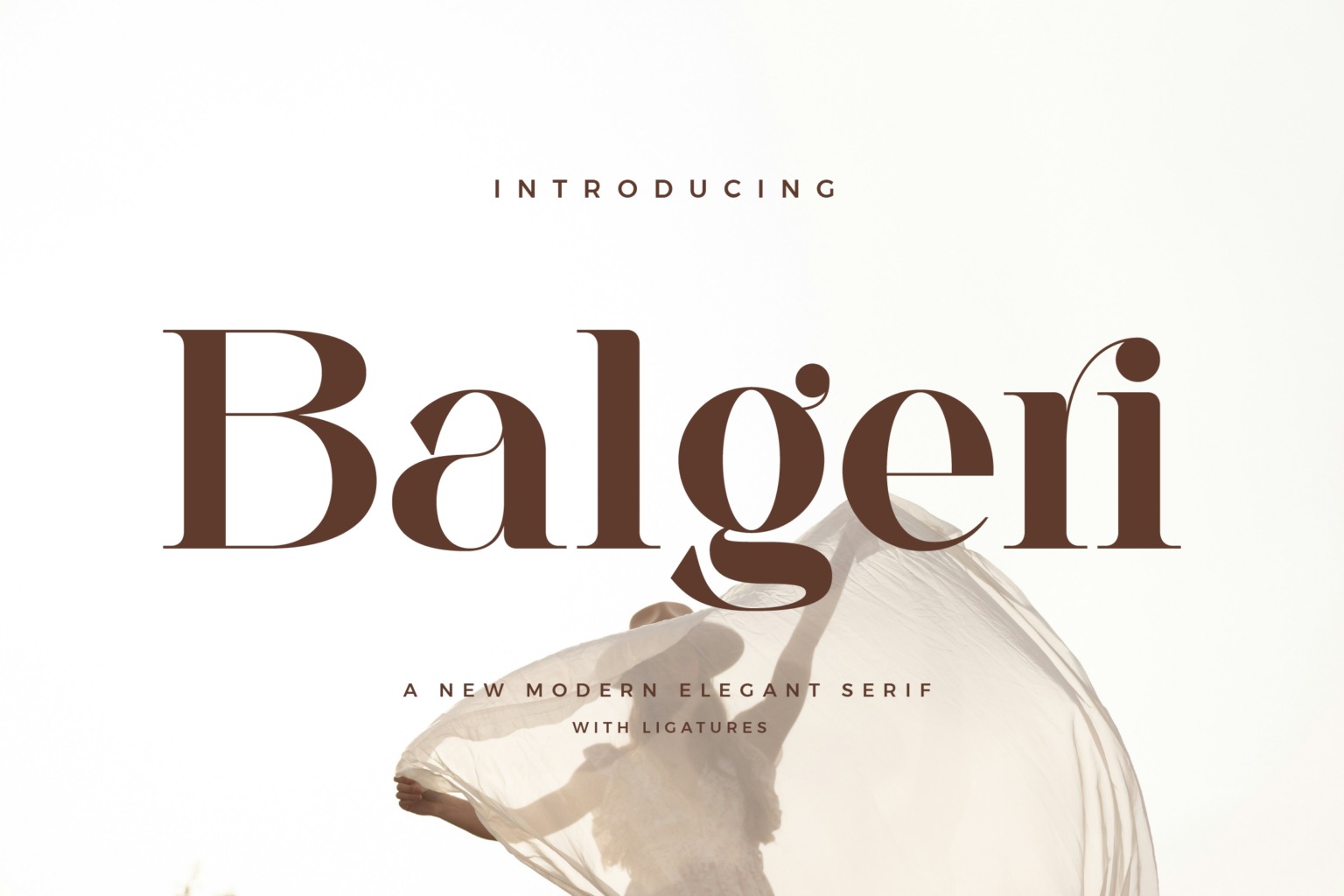
Balgeri – Modern Elegant Serif Font
Balgeri – Modern Elegant Serif Font is a professionally designed typeface that delivers clarity, structure, and consistent performance across various design applications. Balgeri Stylish Ligature Typeface, inspired by the famous minimalist logo perfect for the purposes of designing templates, brochures, videos, advertising branding, logos and more.